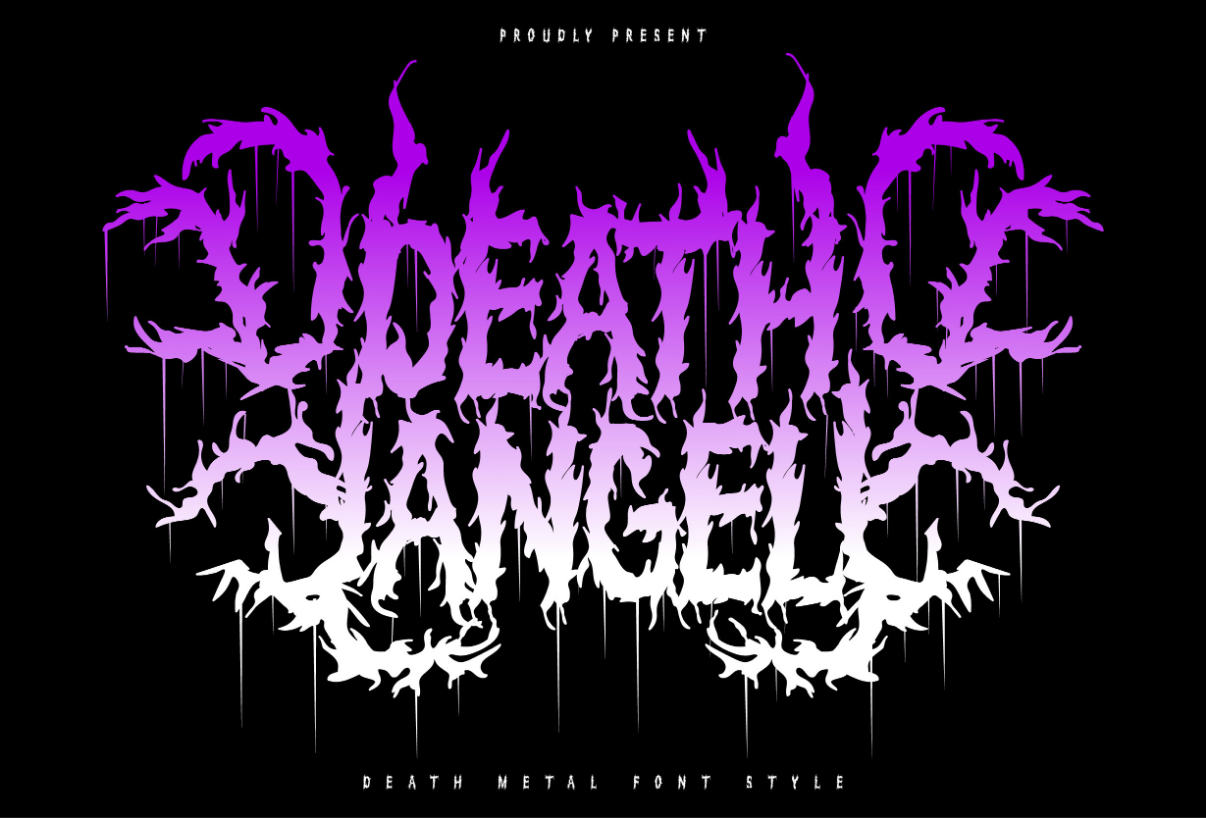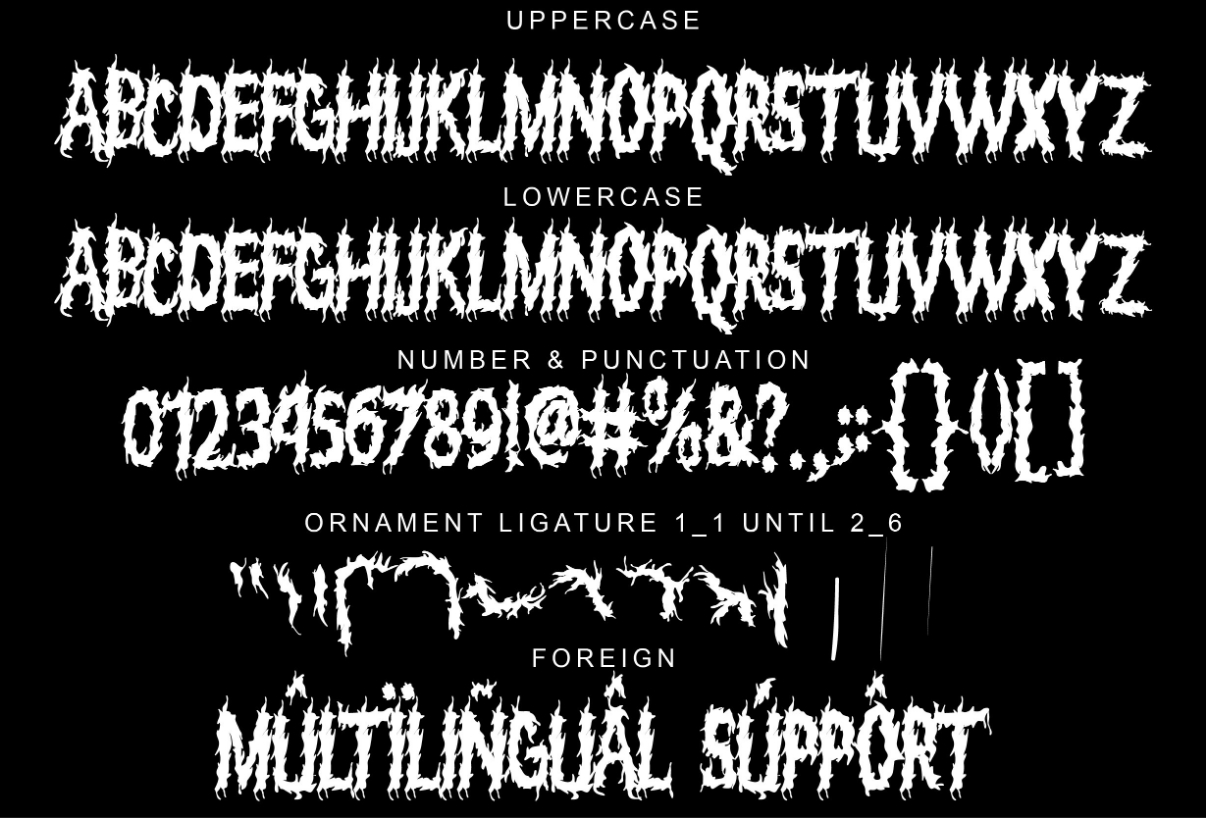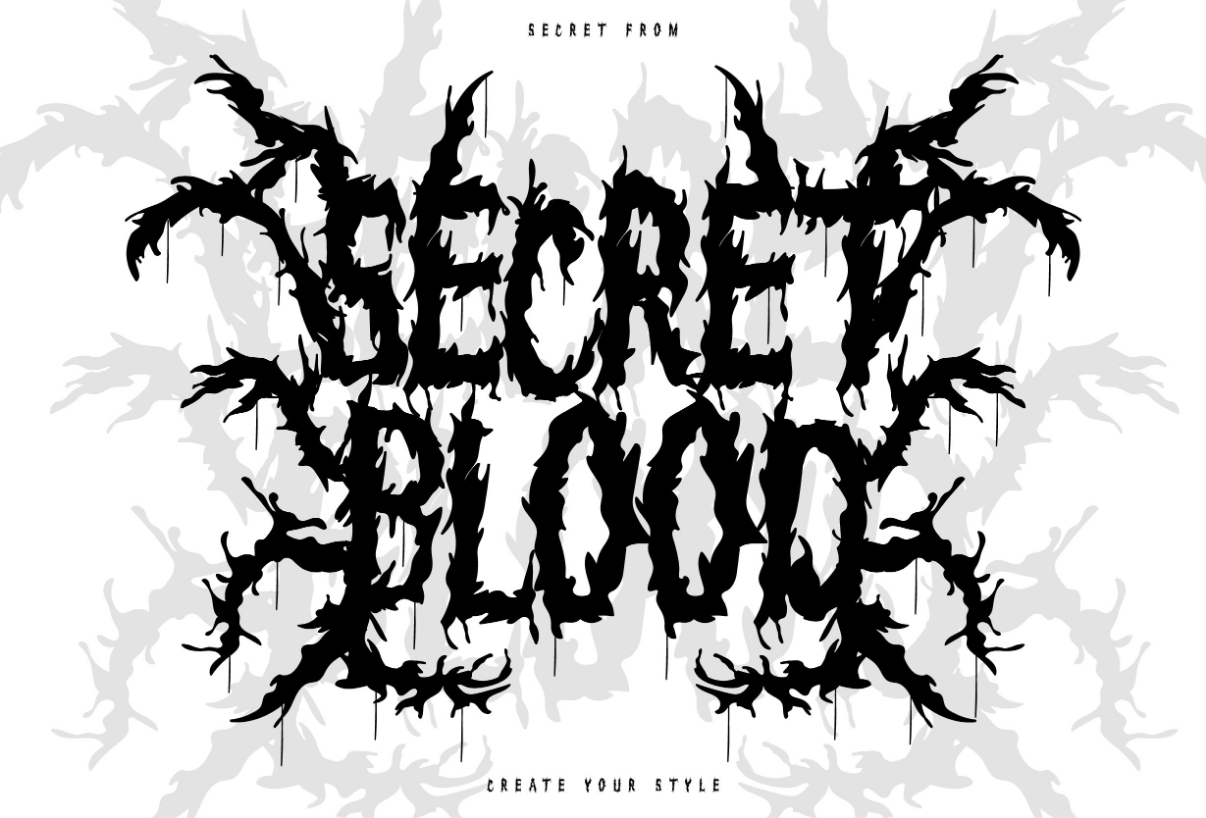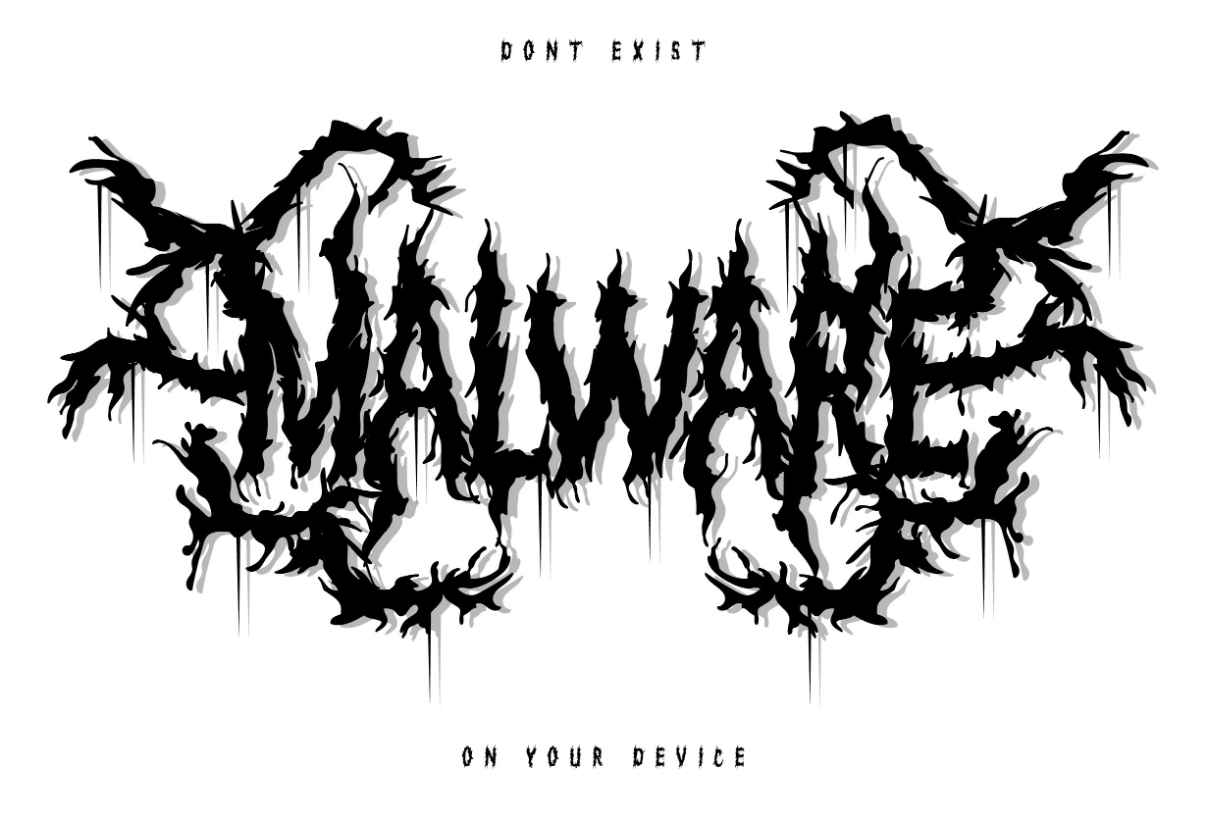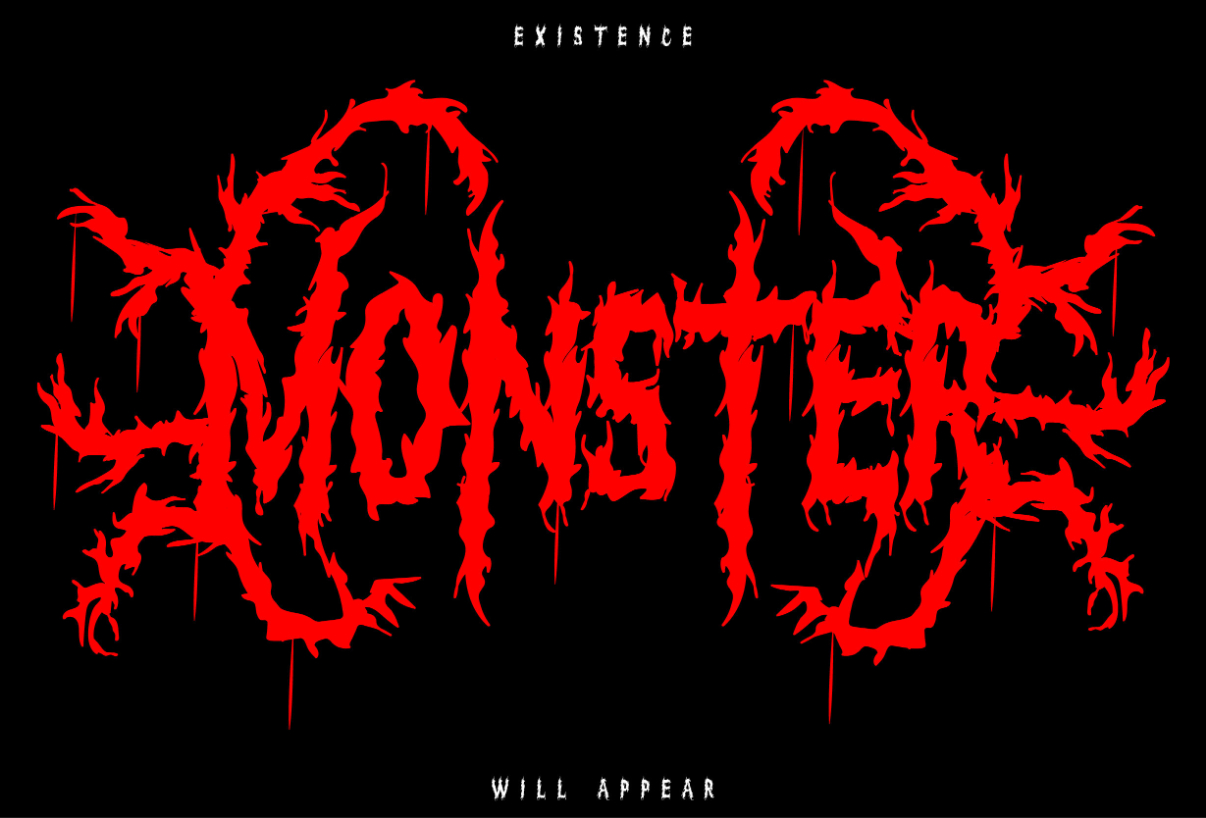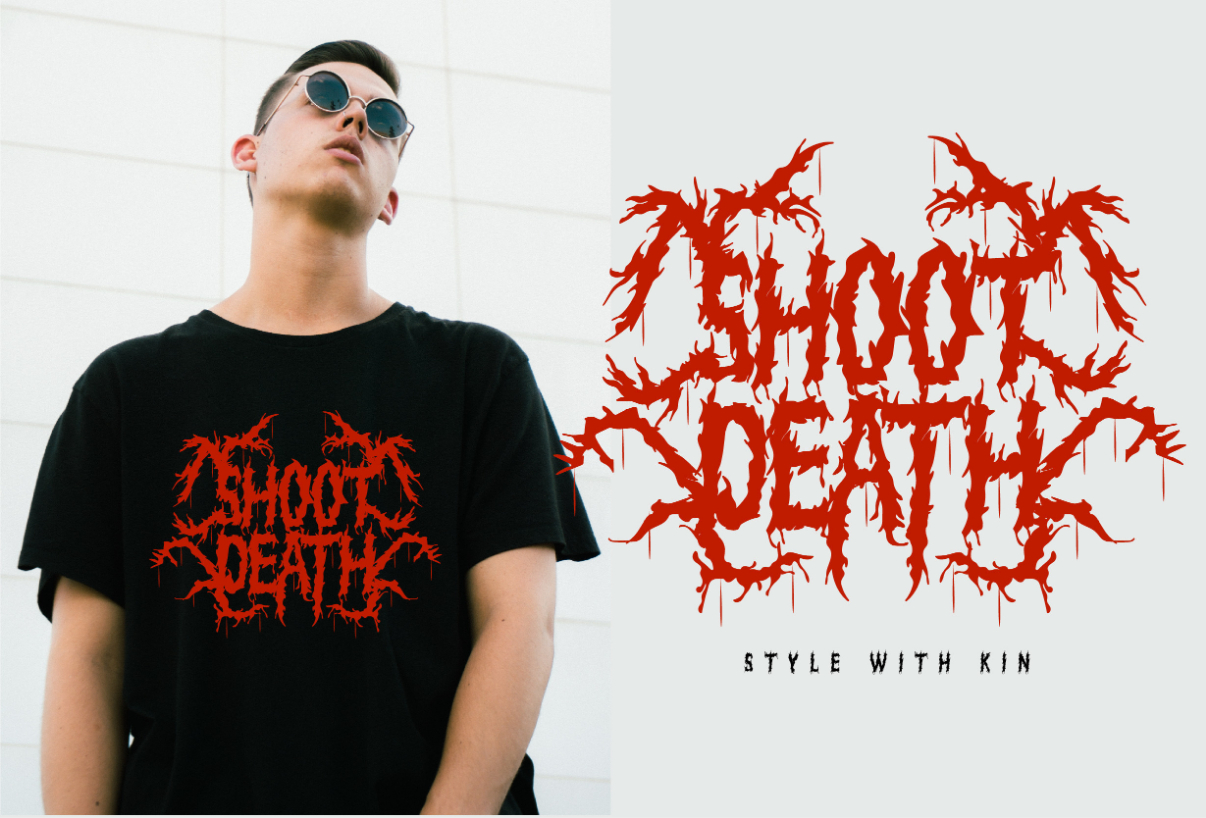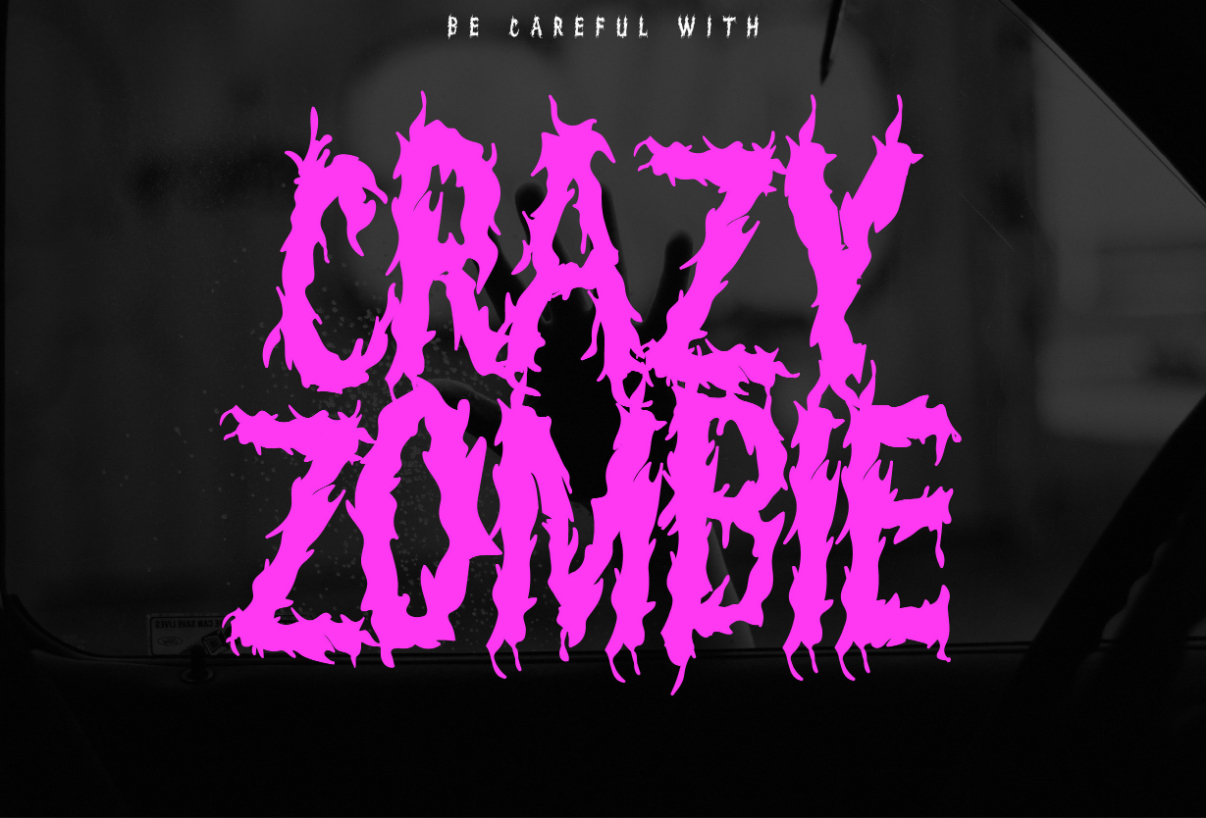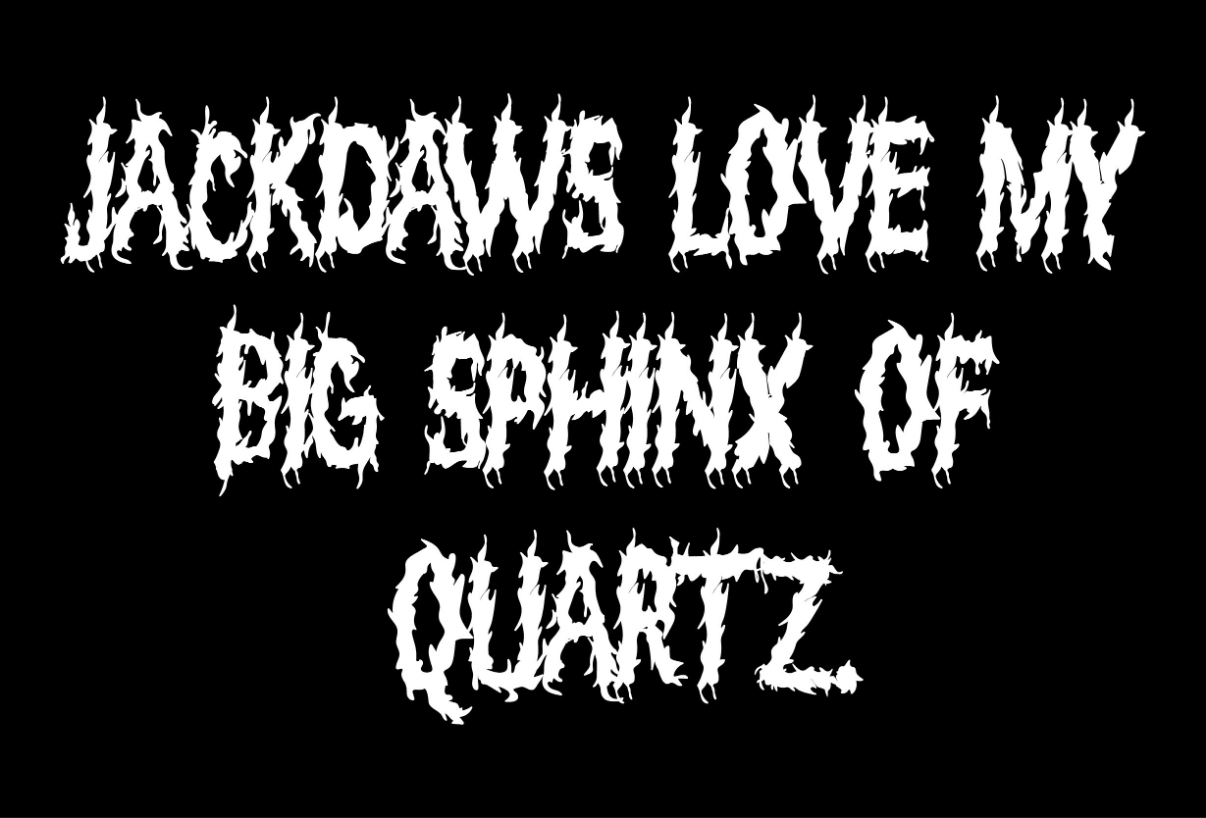
Death Angel Font
About Death Angel Font
Death angel has a strong and aggressive look with crisp, sharp lines. This font has hard angles and leans slightly towards the vertical, giving it a sharp, scary feel. Accompanied by additional ornaments that you can custom style yourself.